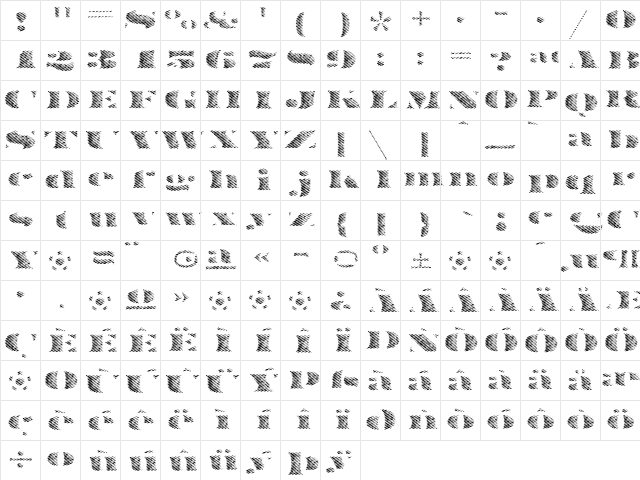
FederalTwelve Diagonal Font Preview
FederalTwelve Diagonal
Design Context for FederalTwelve Typeface
FederalTwelve is a composed and adaptable typeface that performs quietly and consistently across a wide range of design contexts.